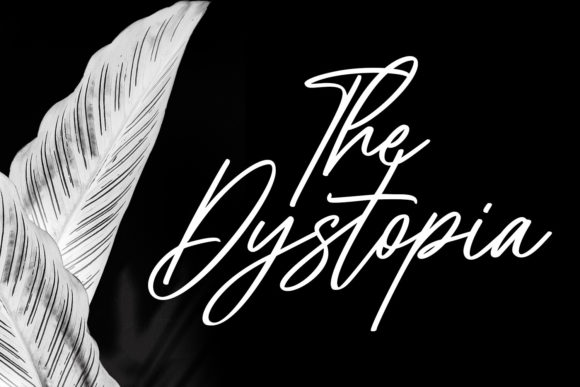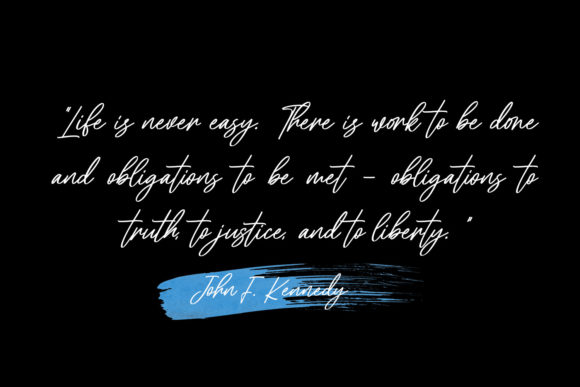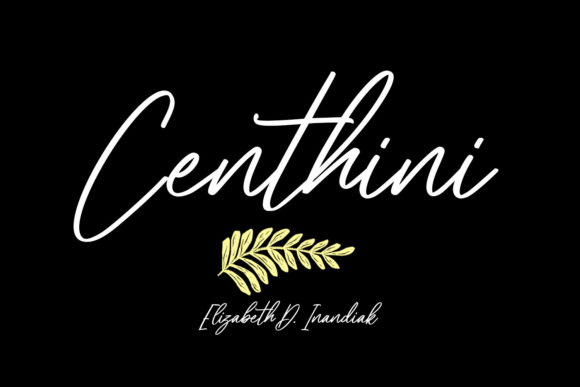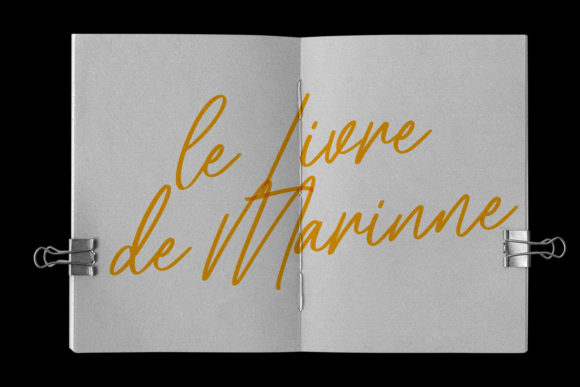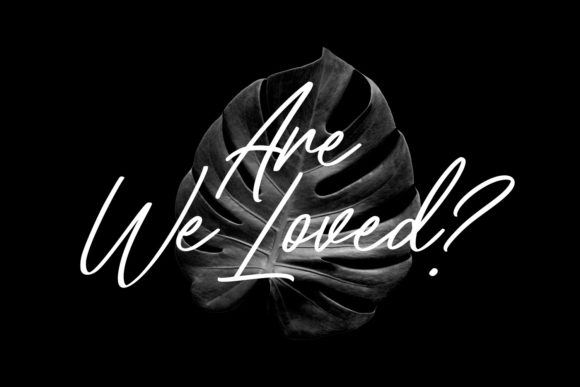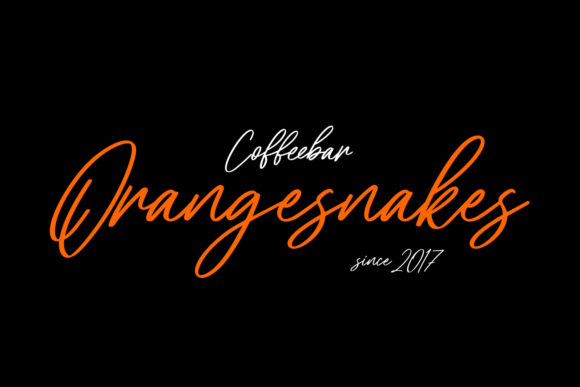
Unleash Your Creativity with Blacksharks Script Font
Are you tired of using the same old fonts for your creative projects? Look no further than the Blacksharks Script Font, a relaxed script font that is sure to add a touch of charm and playfulness to your designs. With its unique and eye-catching characters, this font is perfect for designers and crafters looking to make their work stand out from the crowd.
What is Blacksharks Script Font?
Blacksharks Script is a carefully crafted script font that features charming, playful characters that seem to dance along the baseline. The font’s relaxed and casual vibe makes it perfect for a wide range of creative projects, from handmade crafts to digital designs. Whether you’re creating invitations, greeting cards, or social media graphics, Blacksharks Script Font is sure to add a touch of personality and whimsy to your work.
Key Features of Blacksharks Script Font
• Unique and Playful Characters: Each character in the Blacksharks Script Font has been carefully designed to be charming and playful, making it perfect for adding a touch of personality to your designs.
• Relaxed and Casual Vibe: The font’s relaxed and casual vibe makes it perfect for creating designs that are laid-back and easy-going.
• Easy to Read: Despite its playful nature, the Blacksharks Script Font is easy to read, making it perfect for use in a wide range of creative projects.
• Versatile: The font is versatile and can be used in a variety of creative projects, from handmade crafts to digital designs.
Uses for Blacksharks Script Font
Blacksharks Script Font is perfect for a wide range of creative projects, including:
• Handmade Crafts: Use the font to add a personal touch to your handmade crafts, such as knitting patterns, sewing projects, and scrapbooking.
• Digital Designs: Use the font to create eye-catching digital designs, such as social media graphics, blog posts, and email newsletters.
• Invitations and Greeting Cards: Use the font to create unique and personalized invitations and greeting cards for special occasions.
• Branding and Packaging: Use the font to add a touch of personality to your branding and packaging, making your products stand out on store shelves.
Tips for Using Blacksharks Script Font
Here are a few tips for using Blacksharks Script Font in your creative projects:
• Pair with Other Fonts: Pair the font with other fonts to create a unique and eye-catching combination.
• Experiment with Colors: Experiment with different colors to find the perfect combination for your design.
• Use it Sparingly: Use the font sparingly to add a touch of personality to your design, rather than overwhelming the reader.